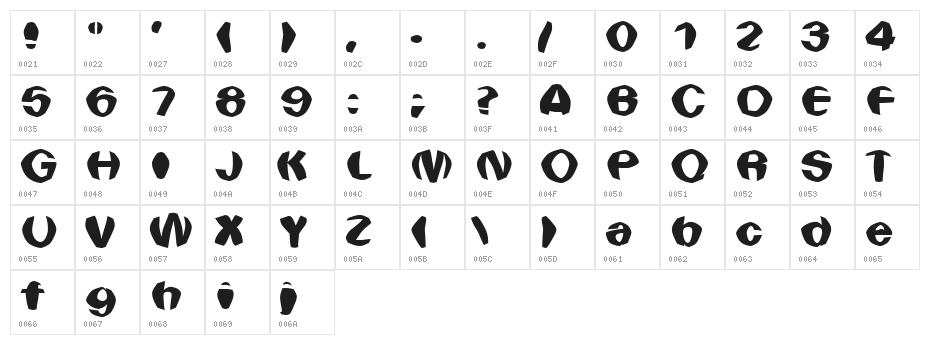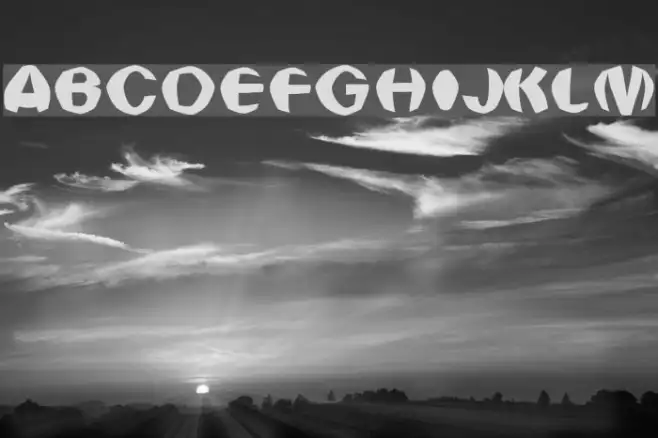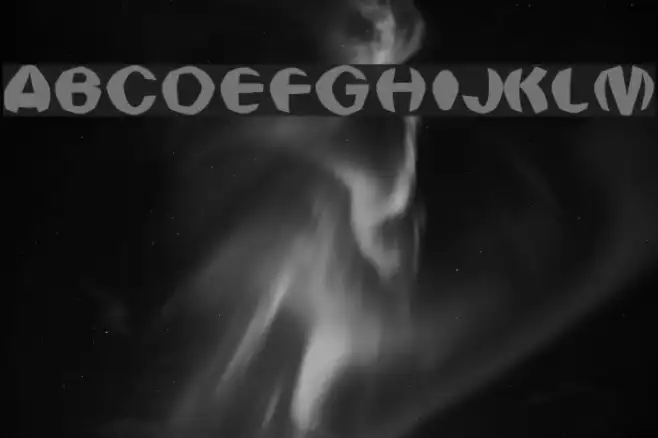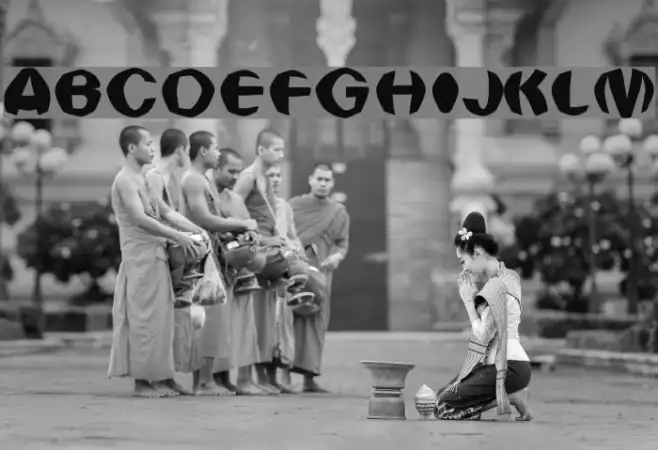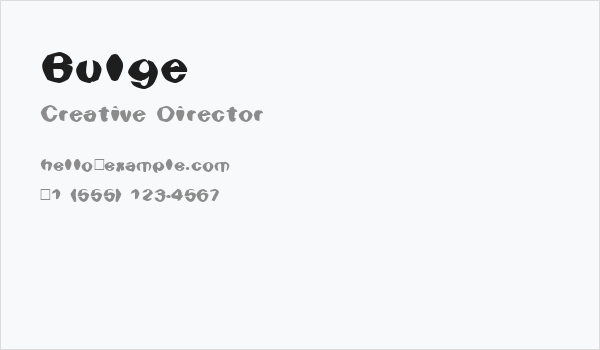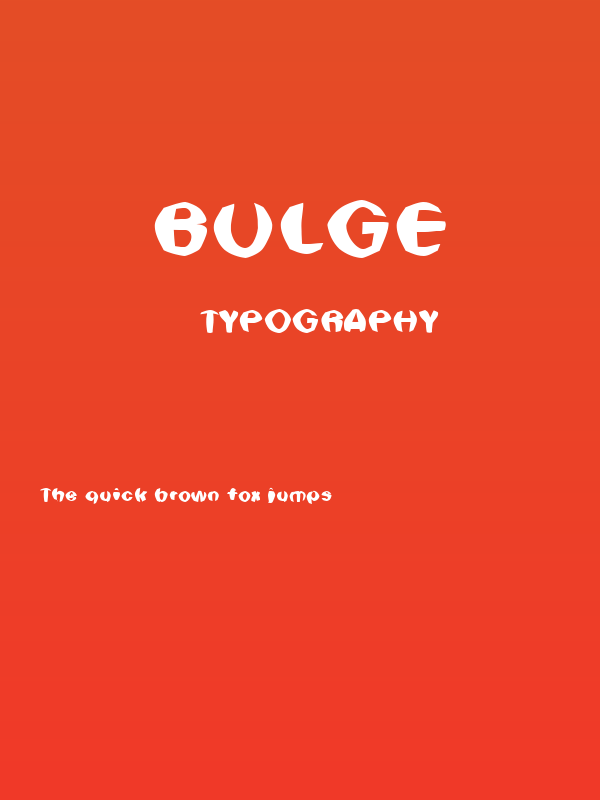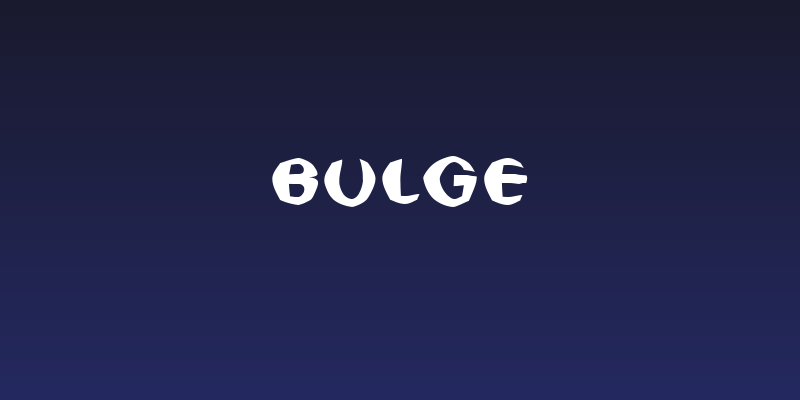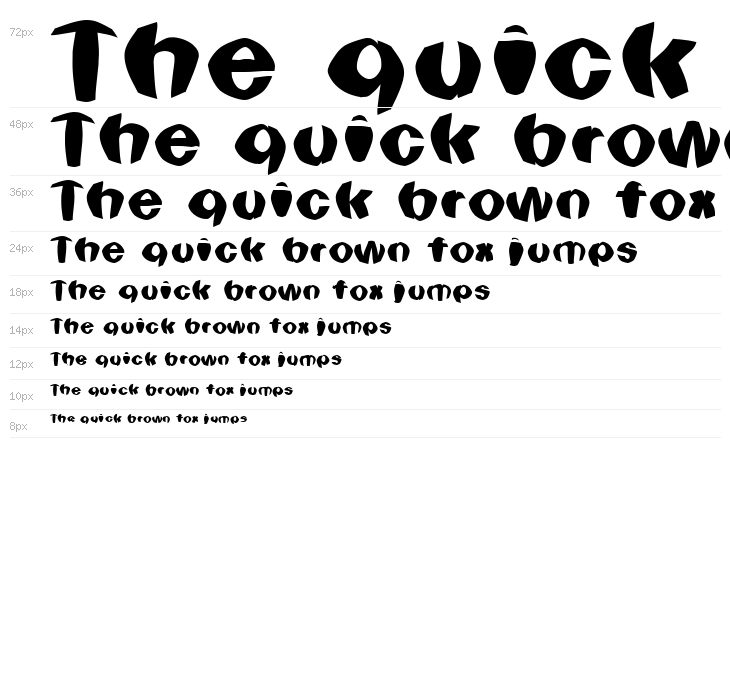
Bulge Font
Bulge Description
This font features a bold and playful design with exaggerated curves and bulges that give it a unique, eye-catching appearance. The characters are rounded and thick, creating a sense of fun and whimsy. The uppercase and lowercase letters maintain a consistent style, with the lowercase being slightly more compact. Numbers and special characters follow the same playful theme, making this font suitable for creative and informal projects. The overall look is dynamic and energetic, perfect for grabbing attention.